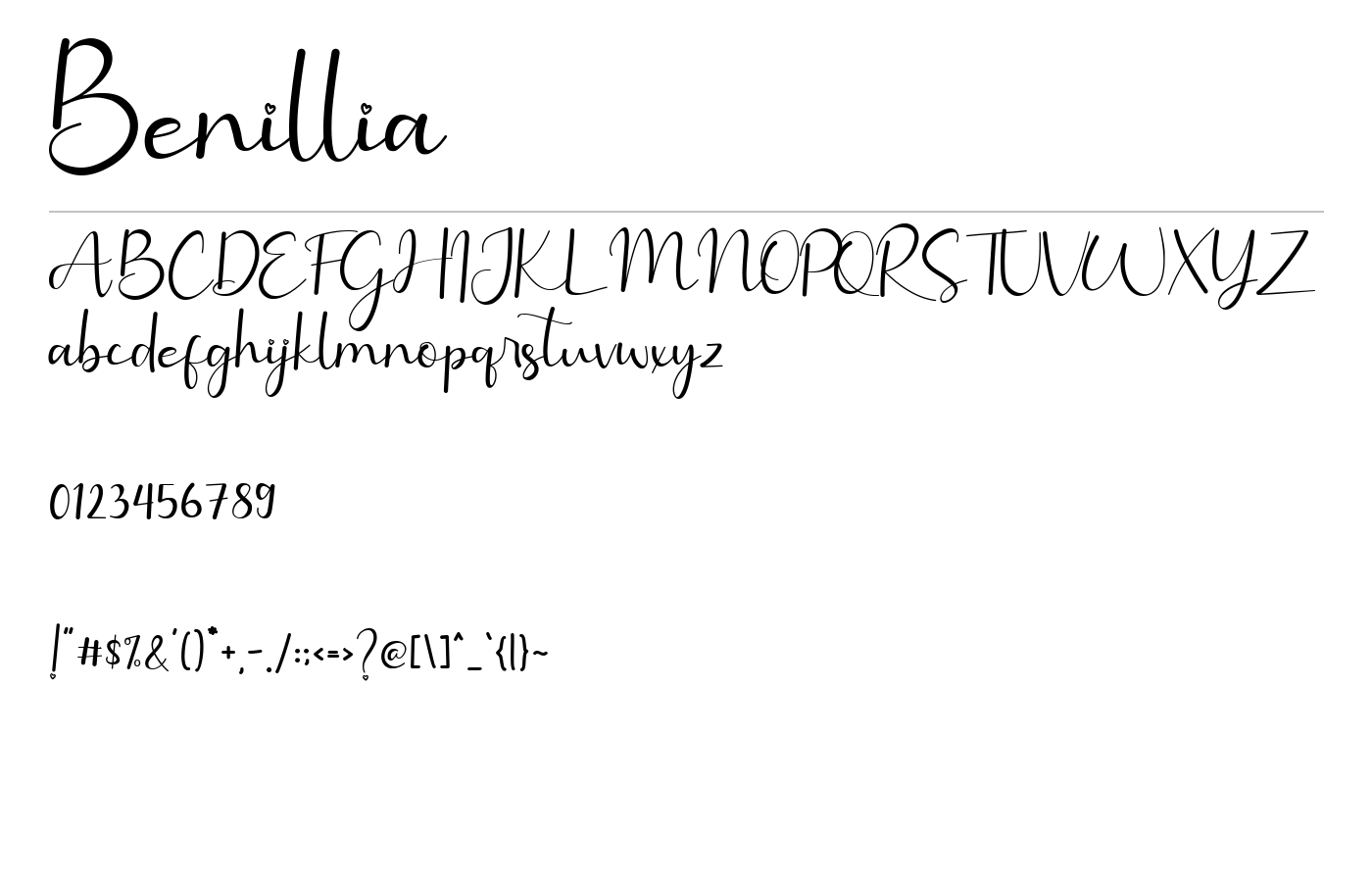
Benillia is a playful and elegant script font with a handwritten feel, characterized by its thin strokes, delicate curves, and whimsical details like the small hearts on the lowercase "i"s. Its light weight and airy letterforms make it perfect for creative projects such as invitations, branding, and social media graphics that want to convey a friendly yet stylish personality. This font shines in headlines and decorative uses where a personal, charming touch is desired.
Benillia Font
About Benillia Font
| Font family | Benillia Font |
| Designer | AEN Creative Studio 2020 |